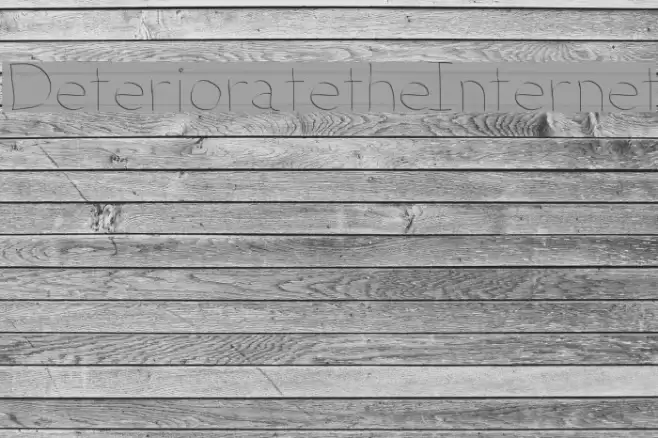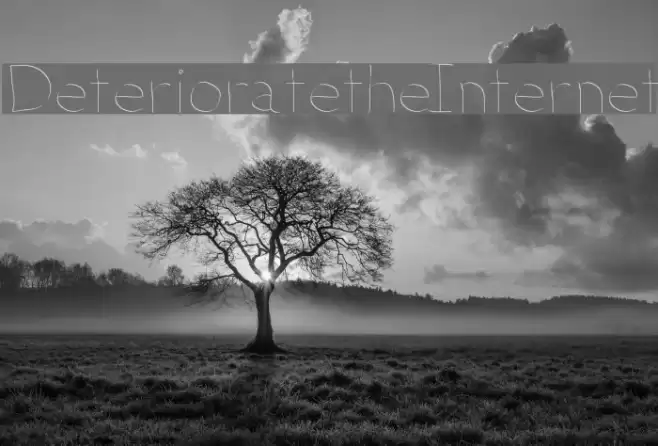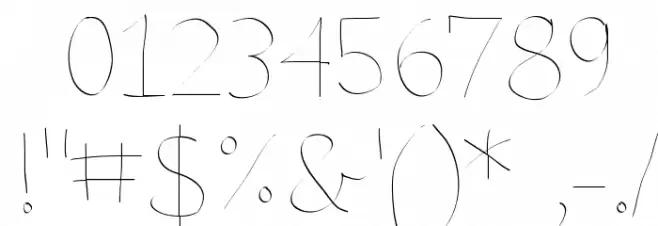
DeterioratetheInternet Font
DeterioratetheInternet Description
This font features a delicate and airy design, characterized by thin, consistent strokes that give it a light and elegant appearance. The letters are slightly elongated, with a subtle handwritten quality that adds a touch of personality. The uppercase and lowercase letters maintain a uniform height, contributing to a harmonious and balanced look. The numerals are clear and straightforward, matching the overall style of the alphabet. Special characters are included, maintaining the same thin and graceful lines. This font's simplicity and elegance make it versatile for various design applications.
A thin, elegant font with a handwritten touch and consistent stroke width from Handwritten fonts.
- Proposed Projects: Ideal for wedding invitations, personal branding, elegant logos, and minimalist designs.
- Weight: Light
- Overall Style: Elegant, Minimalist
- Use Case: Invitations, Branding, Logos